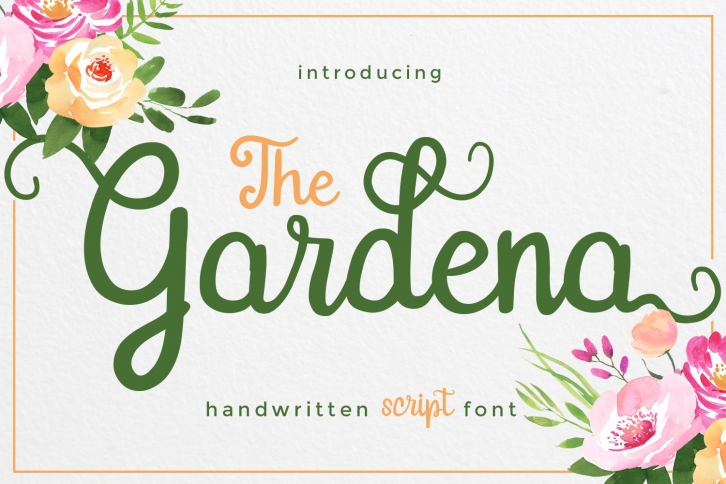
Gardena Script Font is designed and inspired from handwritten font. Gardena font is great for invitation, greeting, headline, casual design, branding design, menu designs, wedding related design, quote or simply design with stylish text overlay to any background image.
- uppercase & lowercase letters
- numbers & punctuation
- alternate glyphs
- this font is PUA encoded, so you can easily use alternate glyphs
- multi language support